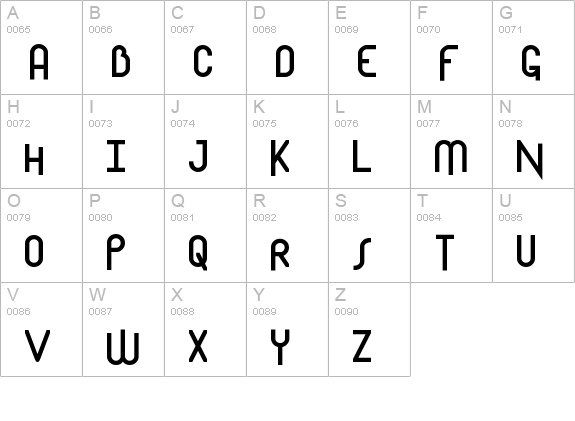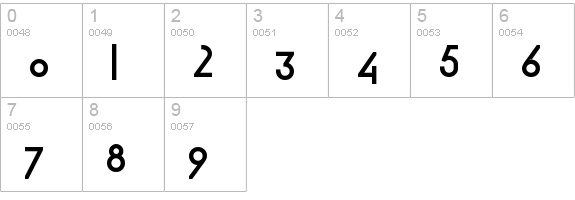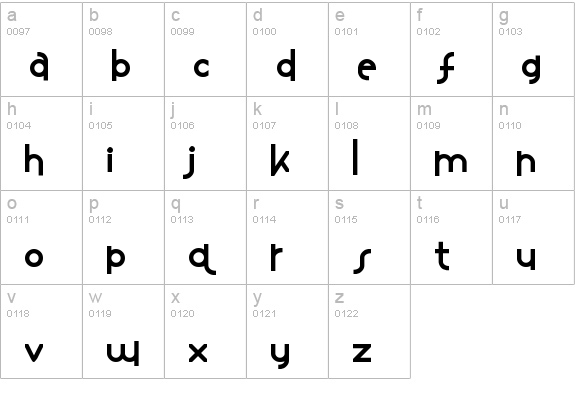
Mostios Font Details
Introducing Mostios font, a versatile and modern typeface that exudes elegance and sophistication. With its clean lines and smooth curves, Mostios is the perfect choice for a wide range of design projects, from branding to editorial design and everything in between. This font offers a unique balance of classic and contemporary styles, making it suitable for both traditional and cutting-edge designs. Its sleek and professional appearance makes it ideal for corporate communications, while its subtle flair adds a touch of personality to any project. Best of all, Mostios is available for free download at FontsMarket.com, allowing you to easily access this high-quality font for your creative endeavors. Don't miss out on the opportunity to enhance your designs with the timeless appeal of Mostios font.